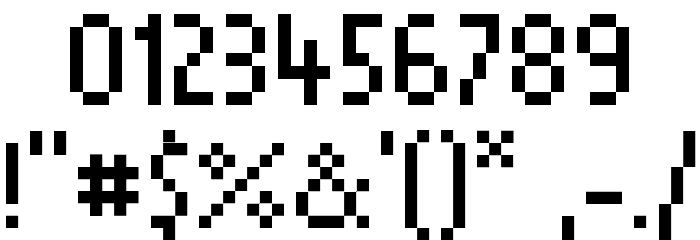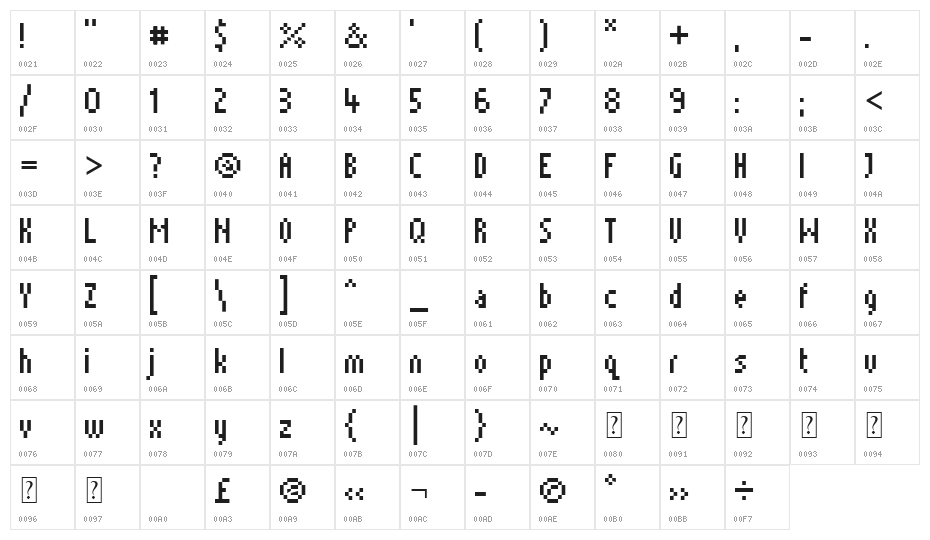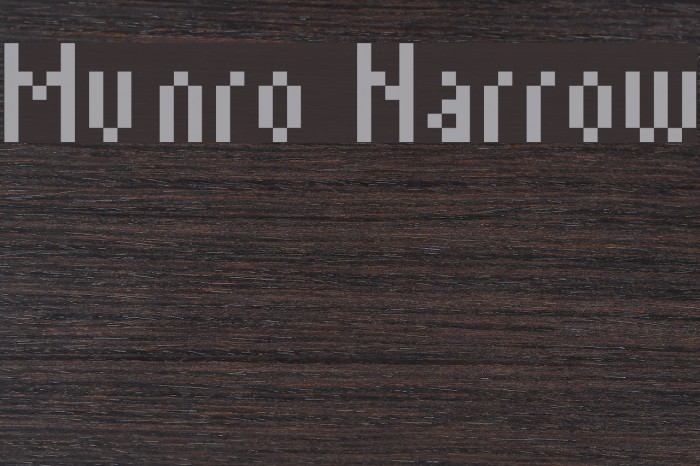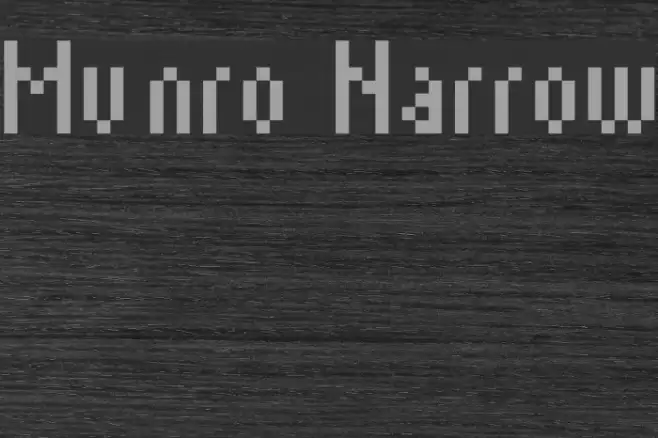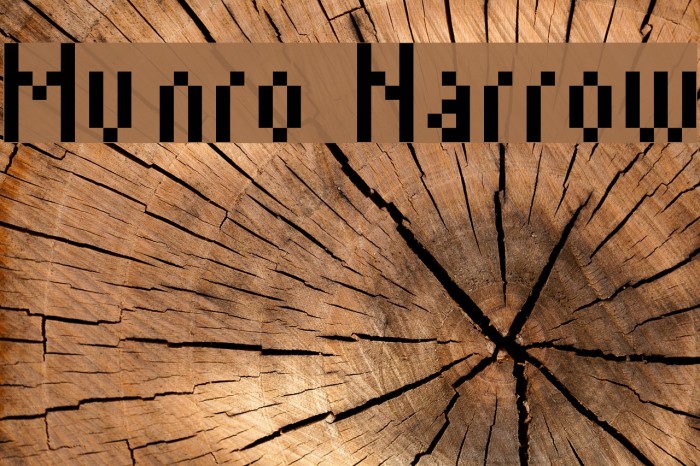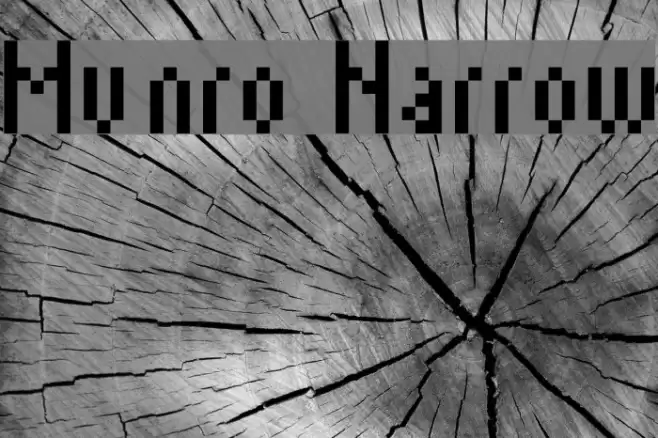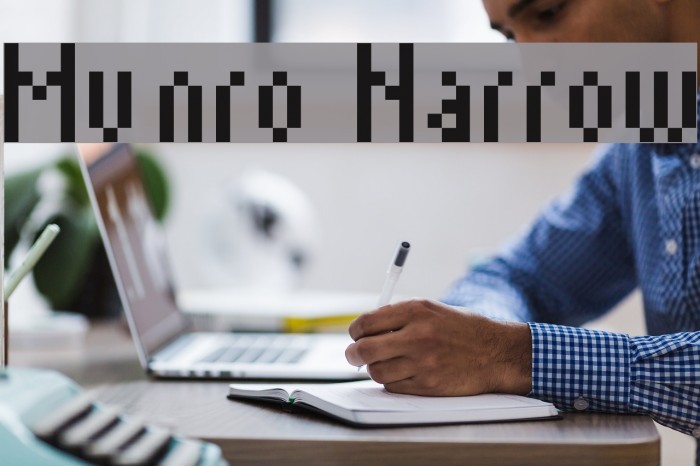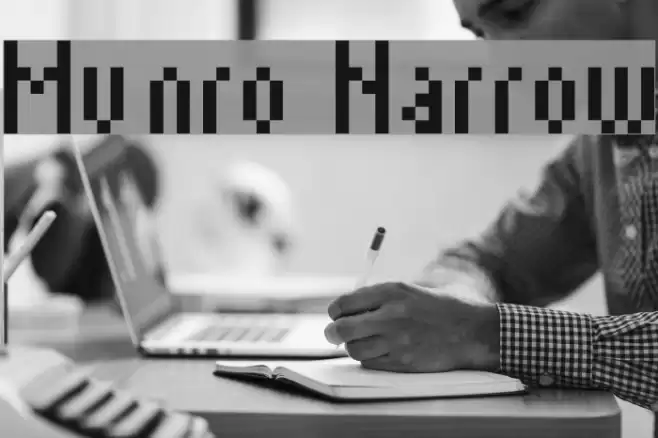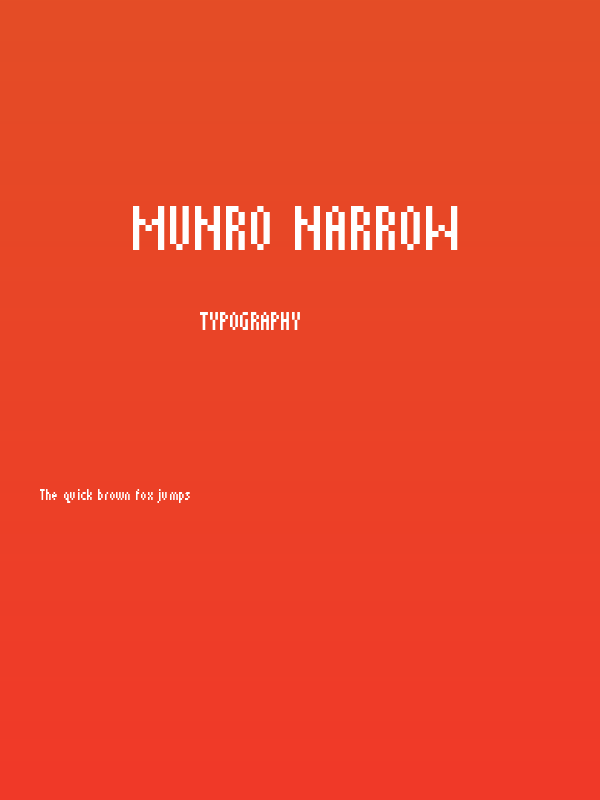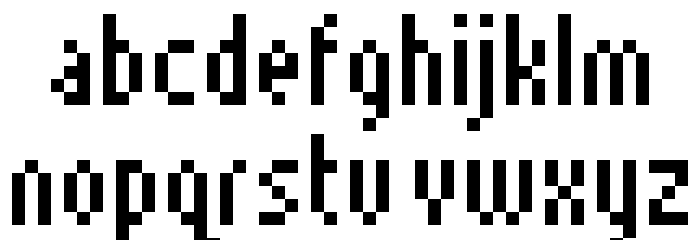
Munro Narrow Font
Munro Narrow Description
This font features a pixelated, monospaced design reminiscent of early digital displays and retro video games. Each character is constructed with a grid-like precision, giving it a blocky and geometric appearance. The uniformity in width across all characters contributes to its structured and consistent look. The font's simplicity and clarity make it highly legible, even at smaller sizes. Its nostalgic aesthetic is ideal for projects that aim to evoke a sense of vintage digital technology or retro gaming culture.
| Overall Style | Retro |
| Use Case | Headlines, Logos, Digital displays |
| Proposed Projects | Ideal for retro video game graphics, digital art projects, tech-themed posters, and any design requiring a vintage digital look. |